Various technologies are booming every day, so it is normal that creating designs in this segment requires really great digital fonts. Digital means future and these handpicked fonts from us can help you design for technology.
Digitalo
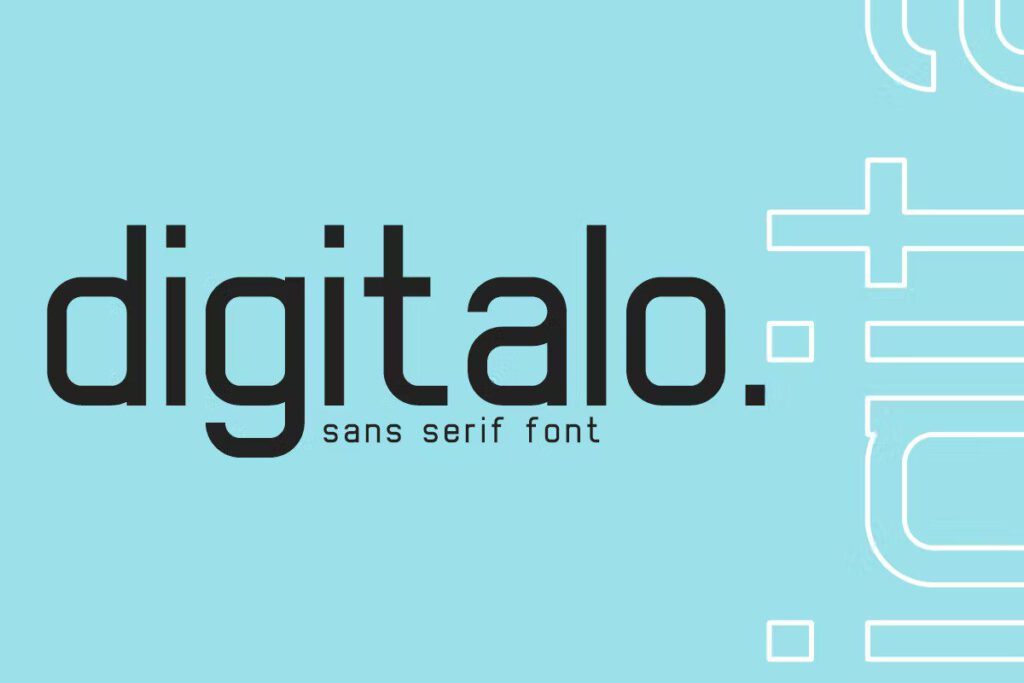
It is a regular and authentic display font. It has an abstract shapes in all their eclectic beauty. This font will look truly outstanding in a wide range of design projects.
Kalisto
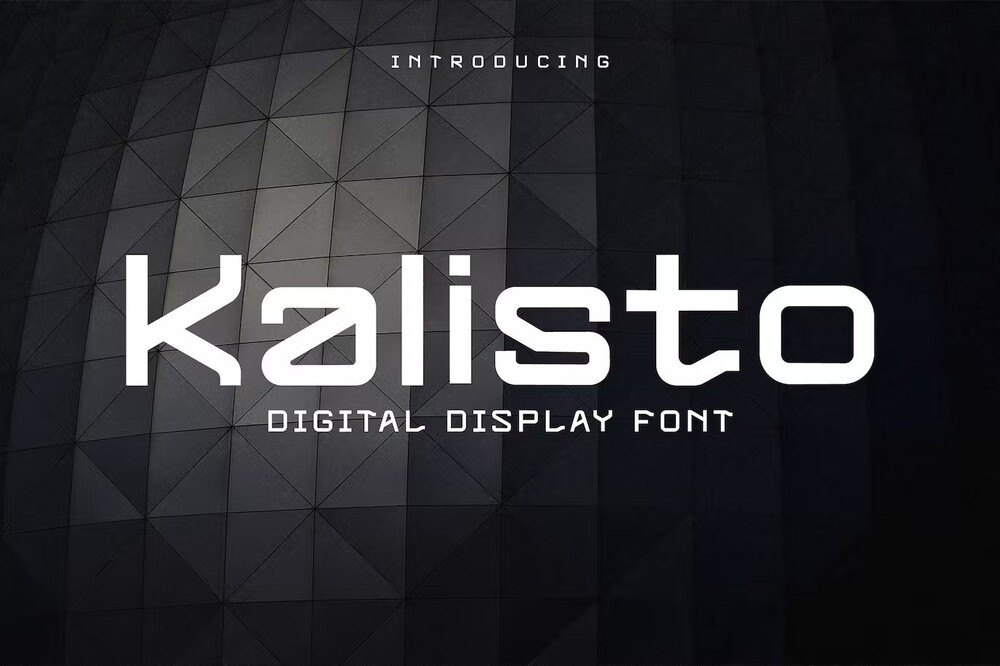
It is a futuristic lowercase letter font which attracts every design project. So goof going for technology, logos, posters, flyers, magazines, titles and etc.
Dgital Threat
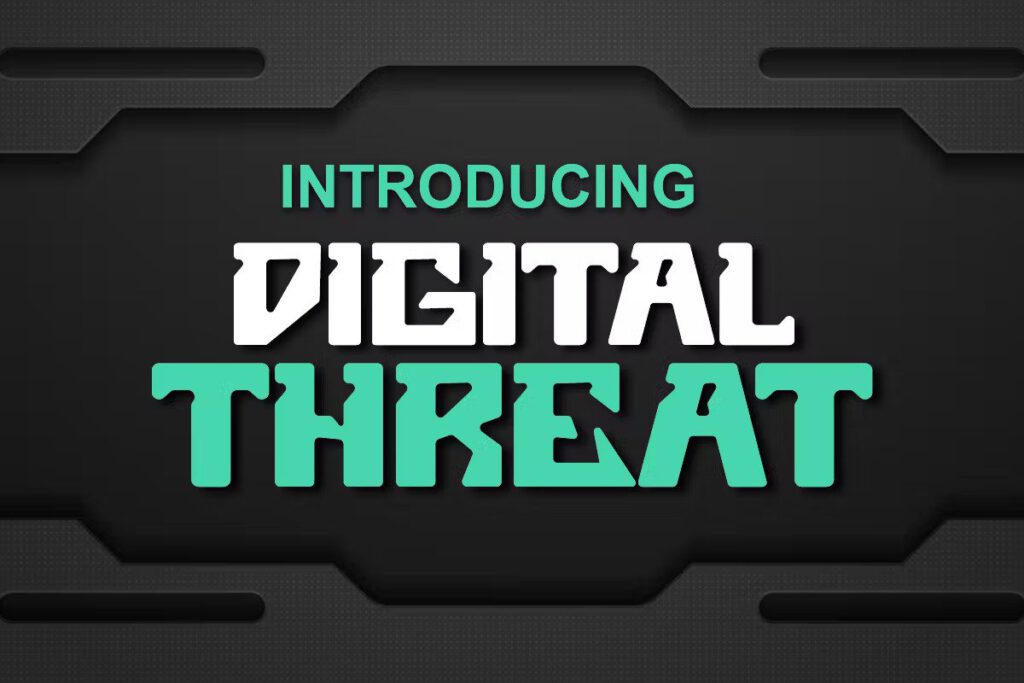
It is a technologic digital robotic font so good going for logos, posters, stickers, jersey, invitation cards, brochures and etc.
Madenz
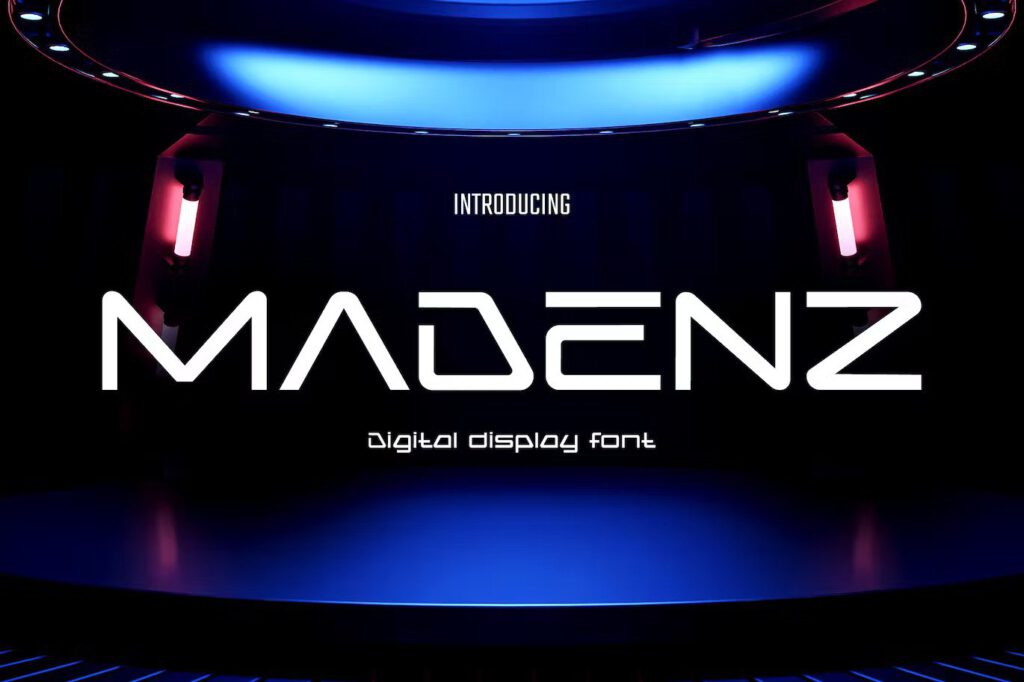
It is a digital metaverse futuristic font well suits for science segmented magazines, posters, movie titles, music posters, youtube covers and etc.
Digibra
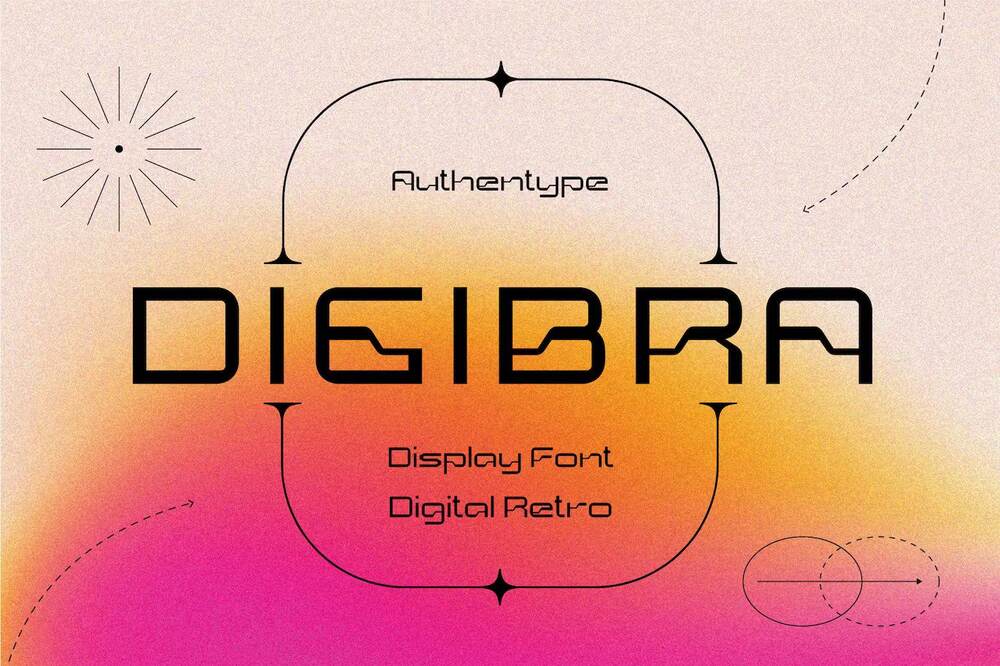
It is a retro digital display font so good going for old digital design projects, but is very appealing for today’s needs.
Geszog
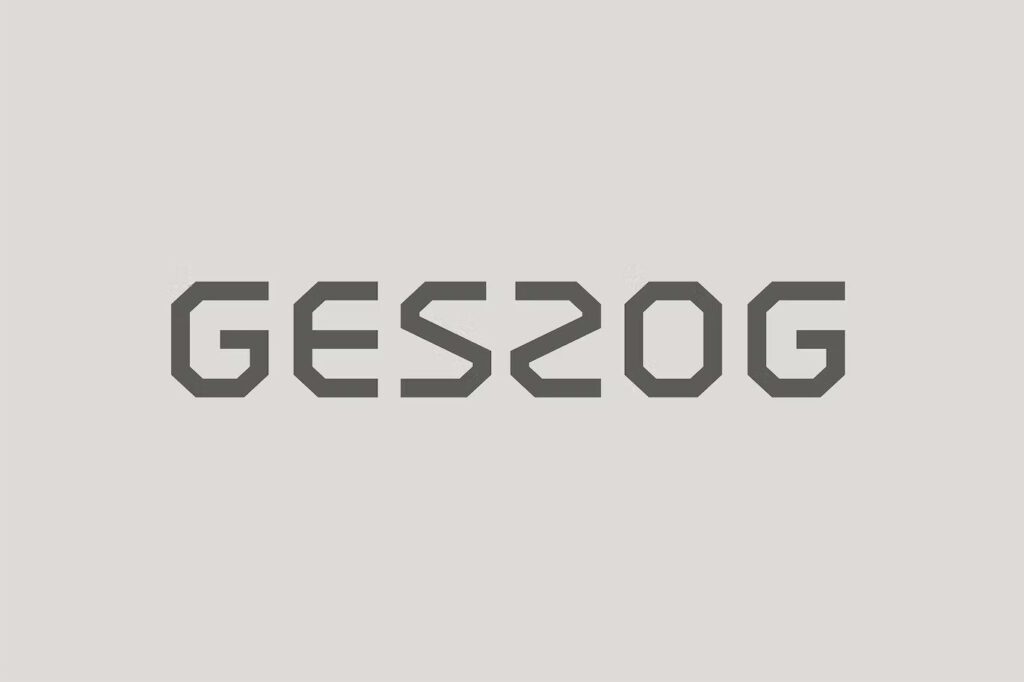
It is a digital font for your futuristic design projects such as titles, movie titles, covers, posters and etc.
Stingo
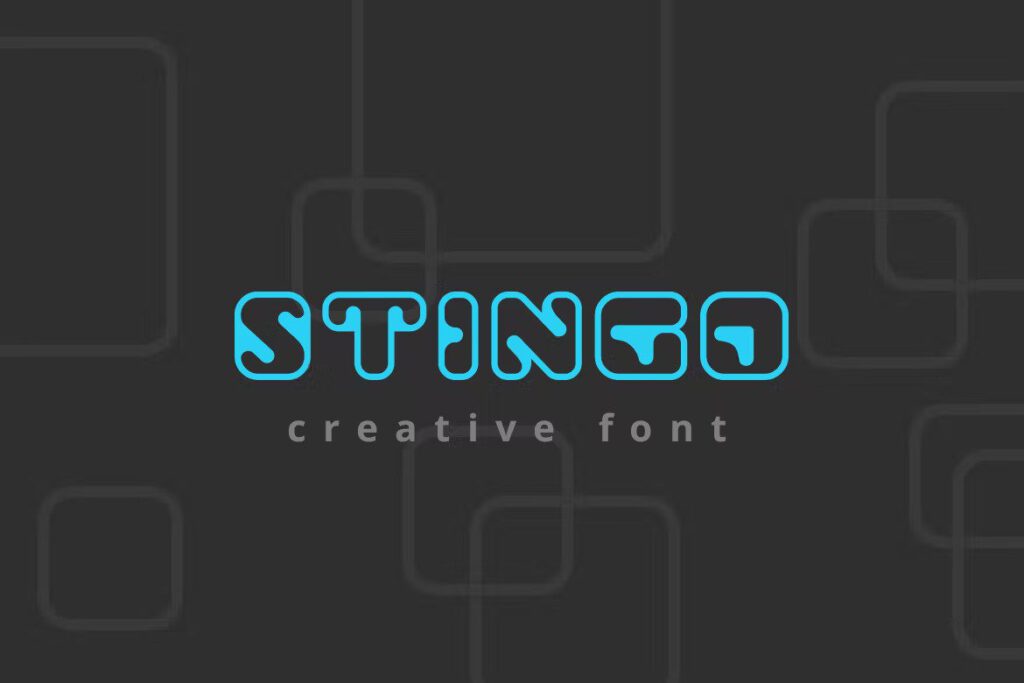
It is innovative technology science robotics digital futuristic creative font. Perfect for logo design and branding, titles, headers, posters, banners, high-tech projects and etc.
Detacher
It is a futuristic vibes font with a wide and bold body. Perfectly fit for poster designs, logos, branding and anytime you need a futuristic touch on it.
FFF Forward / Free
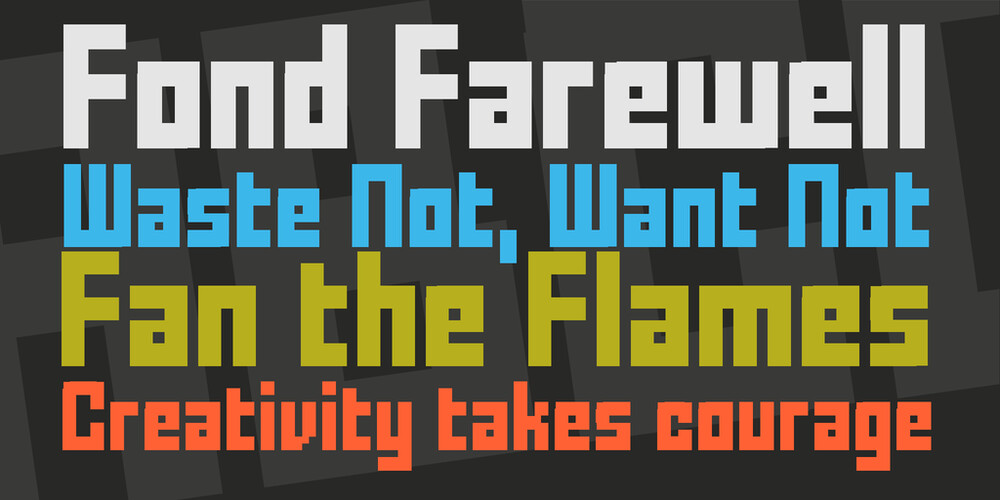
It is a free creative digital font for your designs such as posters, magazines, logos, packaging and etc.
Digital Dream / Free
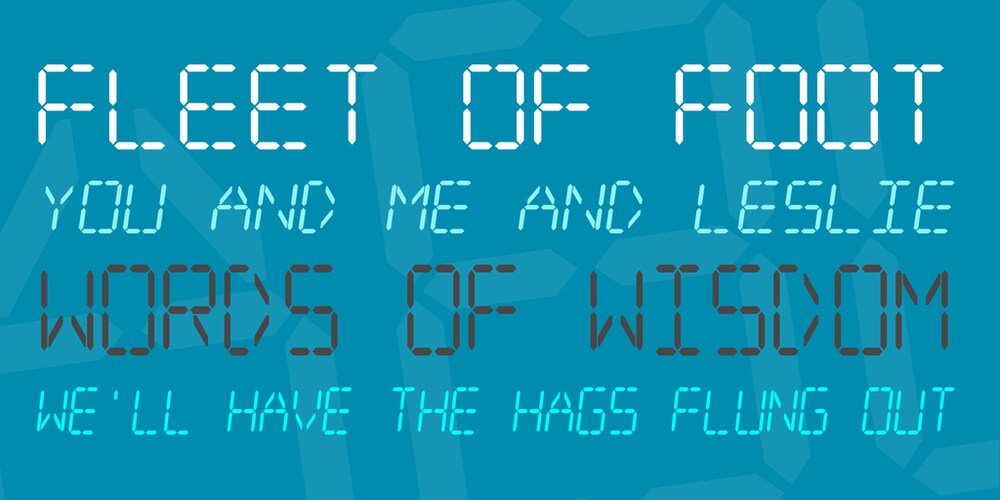
It is a free digital clock font for abstract technology designs such as packaging, posters, covers and etc.
Minisystem / Free
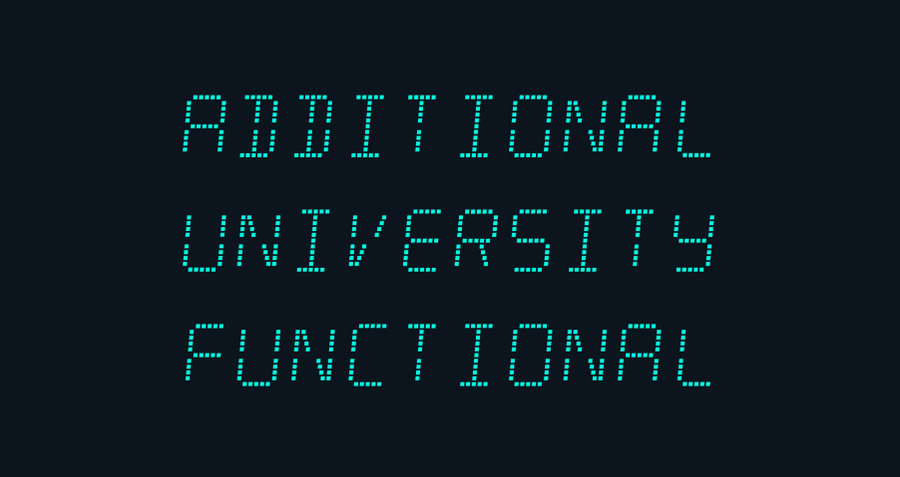
Free to use difital technology font for titles, covers, posters, packaging and etc.
Squad / Free
It is a free font with a touch of futuristic and technology. Perfect for your party designs, posters, covers, titles and etc.
Wim Crouwel 68 / Free
An ideal digital font free for personal and commercial use so good going for futuristic designs such as posters, packaging, logos, magazines and etc.
Sharp Cardinal / Free
An amazing free digital style typeface for your designs such as titles, covers, posters, logos, packaging and etc.
Digital Geometric
It is a fresh, geometric, sans-serif font family can be successfully used in magazines, posters, branding, websites and etc.
Quater
A modern, minimal and abstract alphabet fonts, so good going for technology, electronic, movies, digital, music, future, logos and etc.
Cyber
It is a digital technology font so good going for sci-fi, science and all kinds of futristic projects.
Digitany
It is a multipurpose display font. Ideal going with retro t-shirt designs, posters, illustrations, logos, and etc.
Blogkio
Minimal modern alphabet fonts so good going for branding, headings, technology, digital, movies, invitations, signatures, logos and etc.
Grained Brutal
It is a sexy, bold and powerful modern tech unicase font. It’s great for social media, headlines, large-format print, editorial, branding, posters, fashion designs and websites.